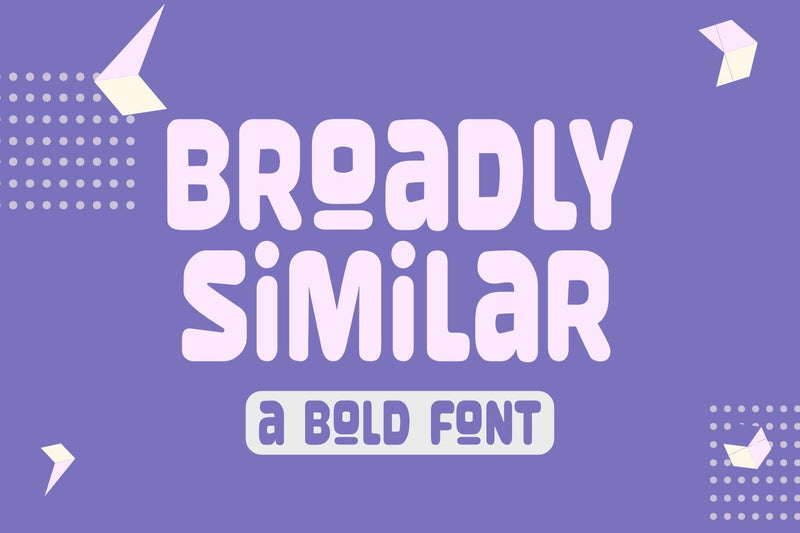
Broadly Similar - a Bold Font
Broadly Similar is a cool and retro styled display font. Add this playful and simple font to your library and notice how it makes your designs come to life.